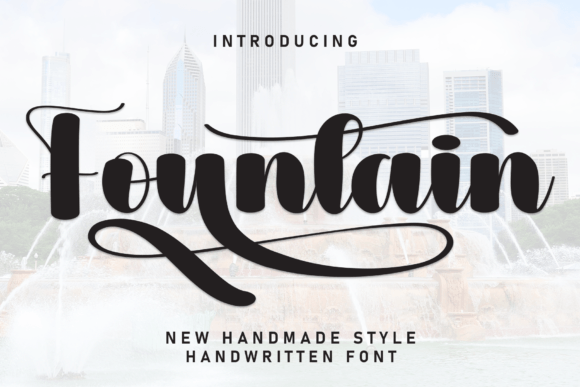
Step into a world of timeless beauty and captivating elegance with Fountain Font, a script typeface that weaves a spell of enchantment. Inspired by the fluidity of water, this font's strokes flow like a gentle river, creating a visual symphony that dances across your designs.
With its smooth curves and delicate flourishes, Fountain Font embodies a sense of grace and sophistication. Its meticulously crafted characters exude a timeless charm, reminiscent of classic calligraphy. Whether you're a designer, a creative professional, or a passionate individual seeking to add a touch of magic to your projects, Fountain Font is your perfect companion.
Immerse yourself in the boundless versatility of Fountain Font, a font that effortlessly adapts to a wide array of design styles. From elegant wedding invitations to enchanting branding concepts, from sophisticated logos to heartfelt greeting cards, Fountain Font seamlessly blends with your creative vision, adding a touch of finesse and artistry to every project.
The world of typography awaits your exploration with Fountain Font as your guide. Its fluid strokes and graceful curves will transform your words into works of art, captivating your audience and leaving a lasting impression. Embrace the timeless beauty of Fountain Font and let your creativity flourish.